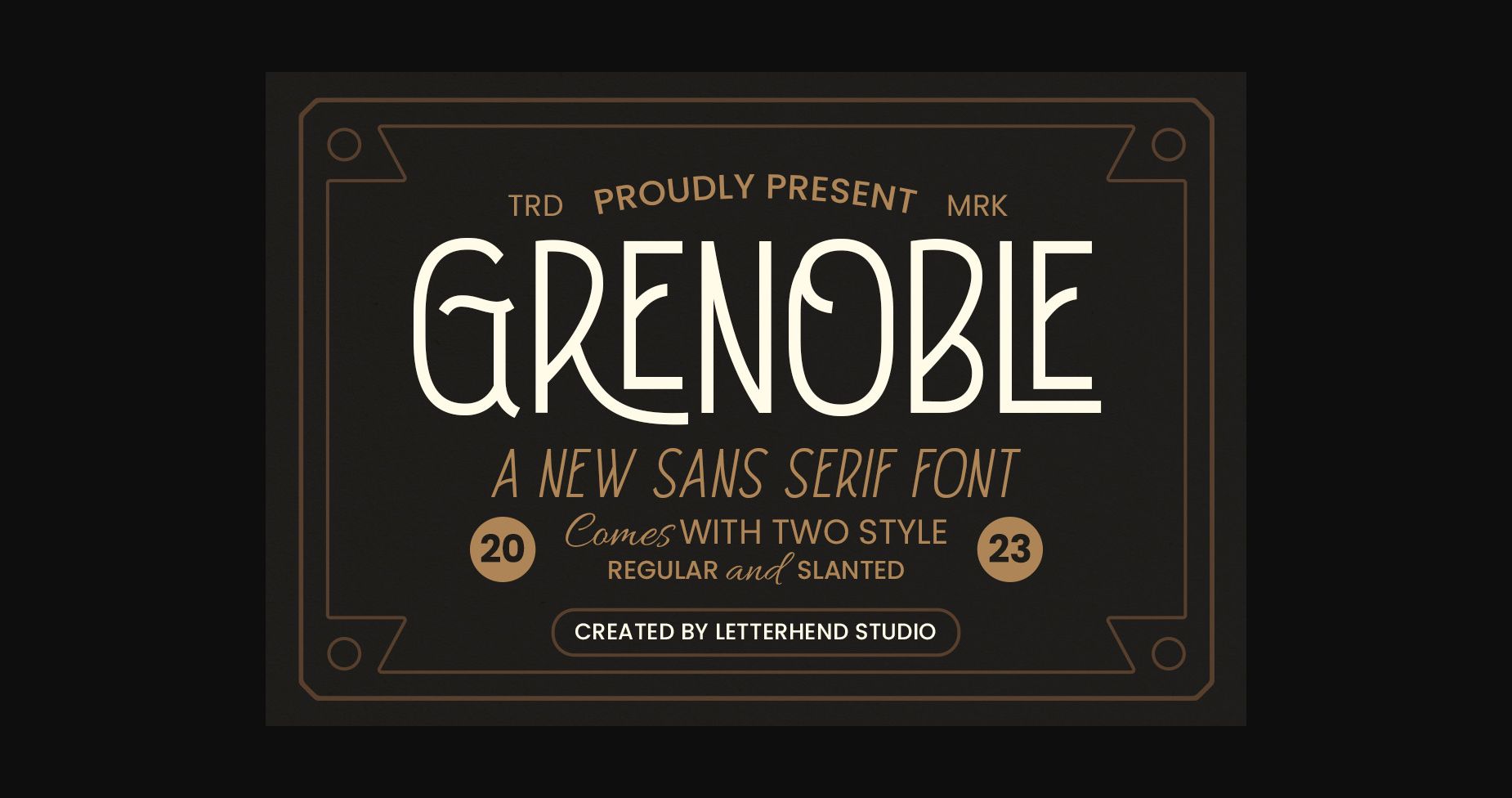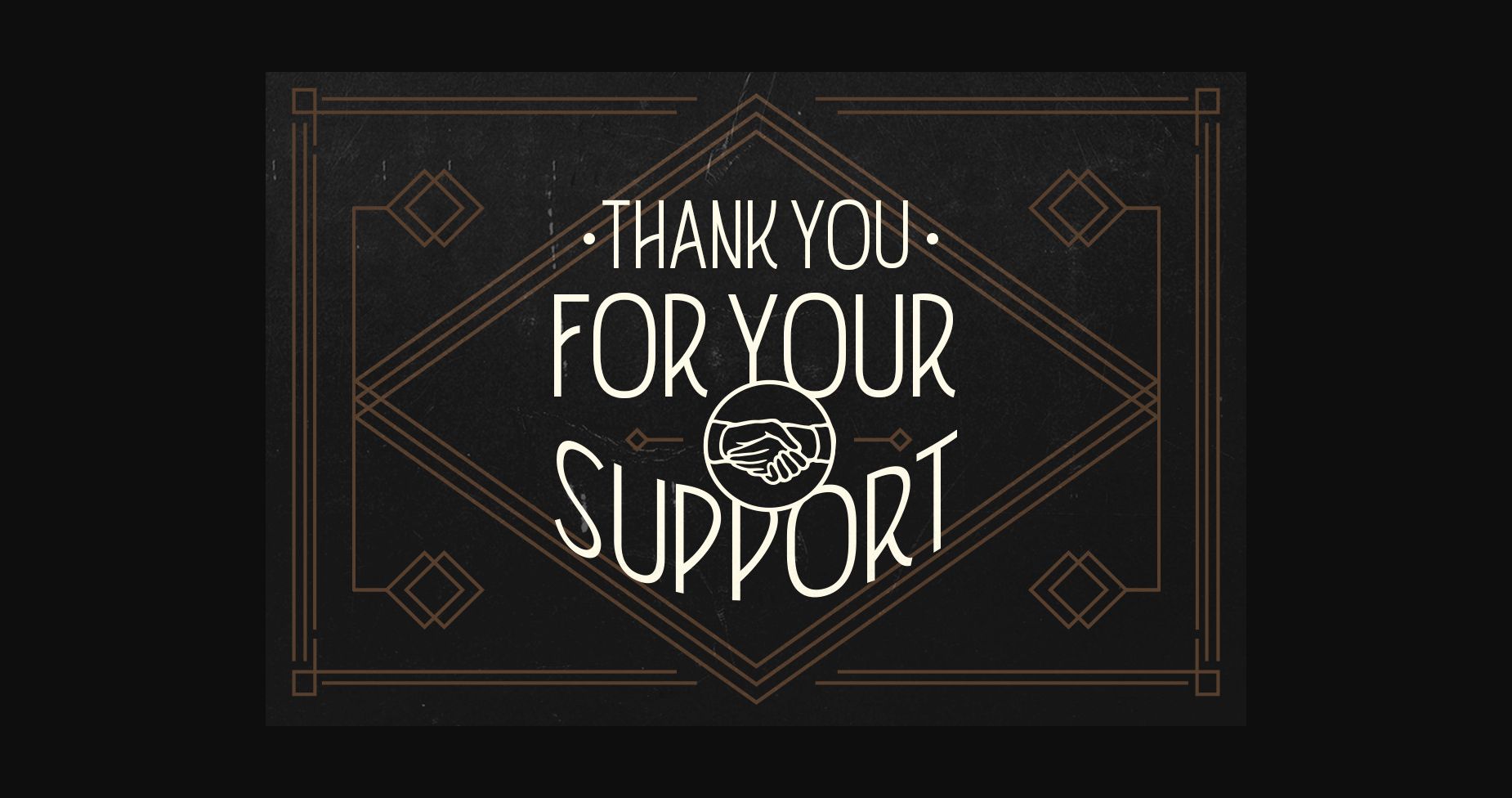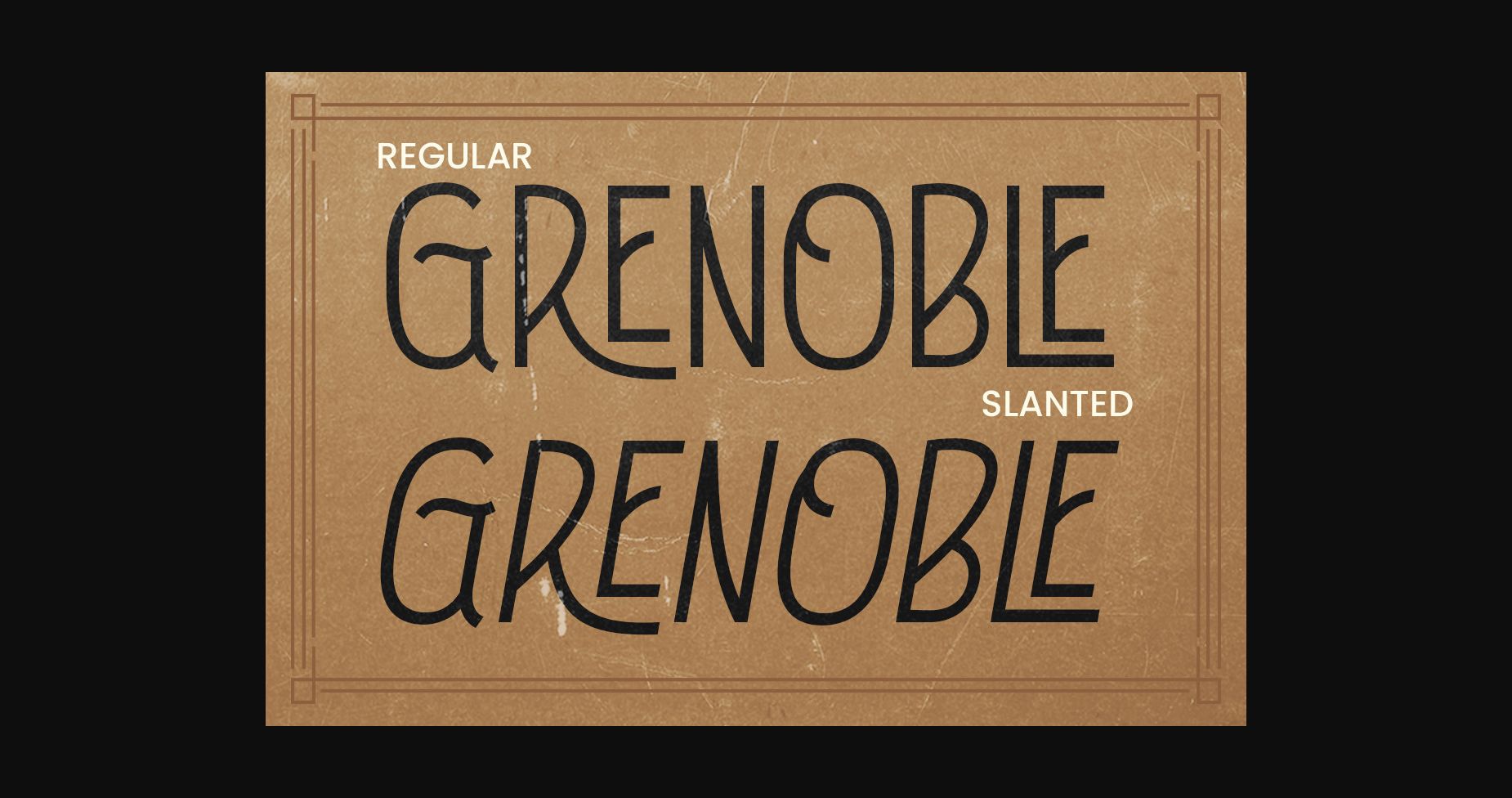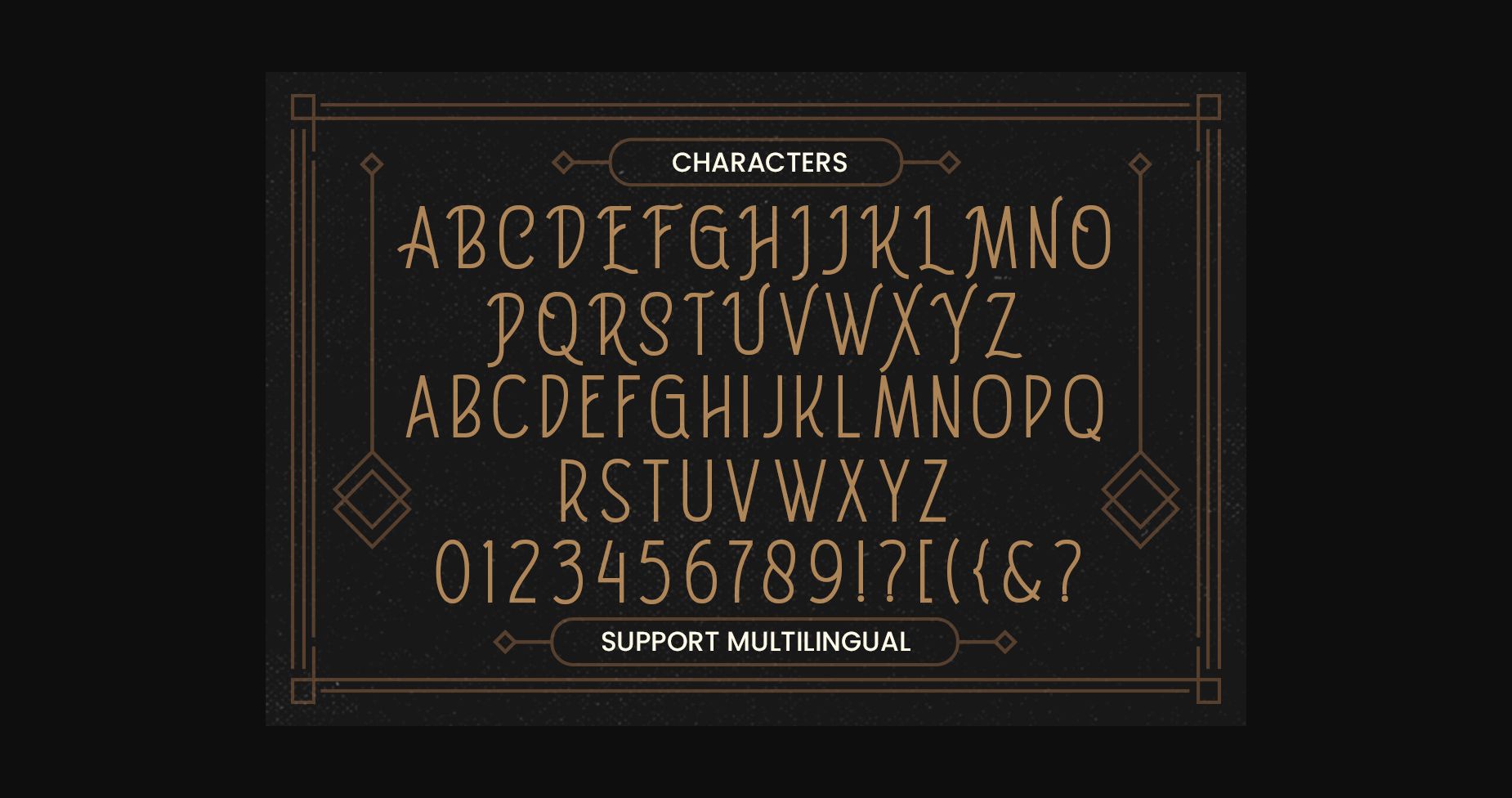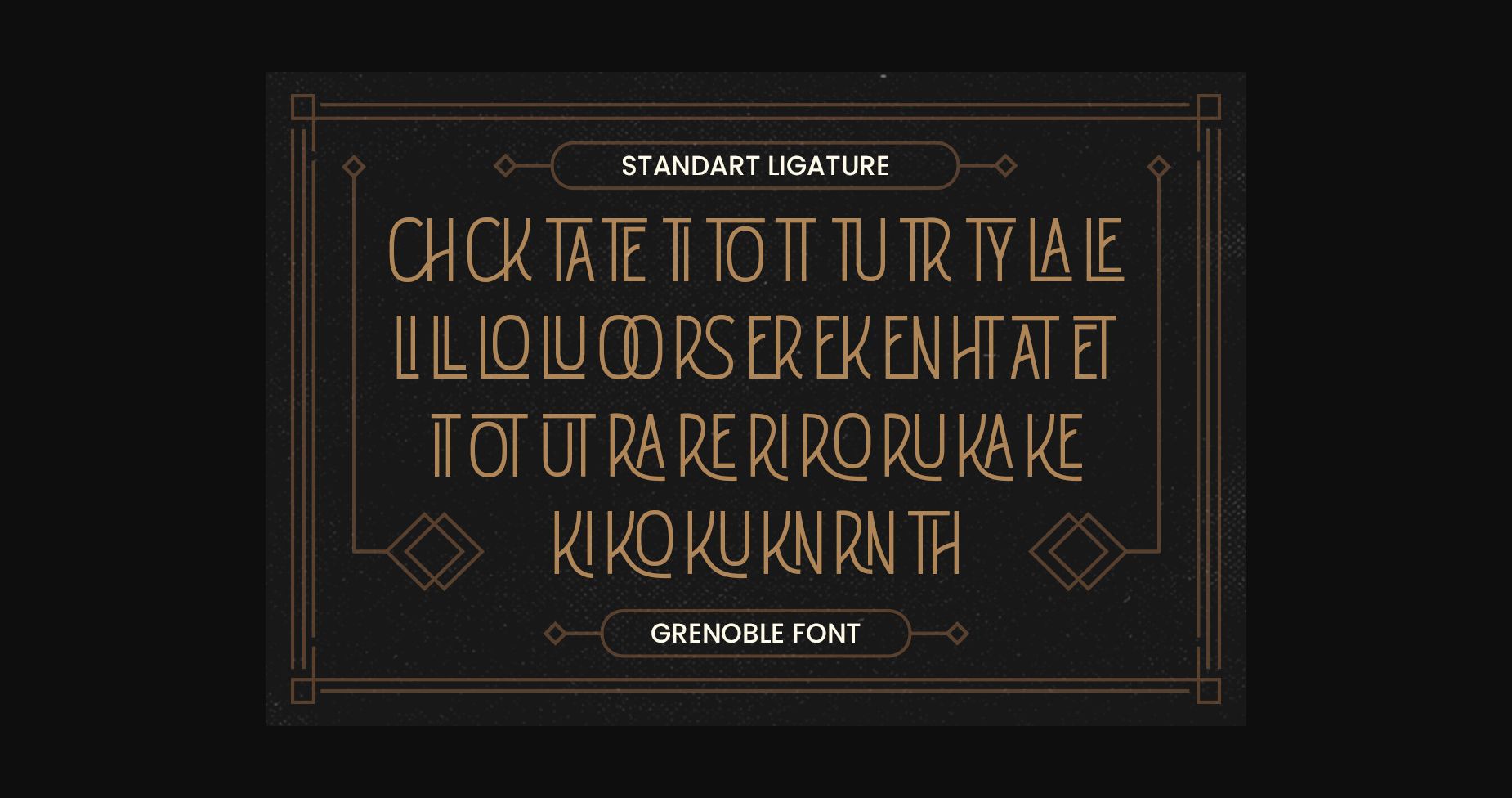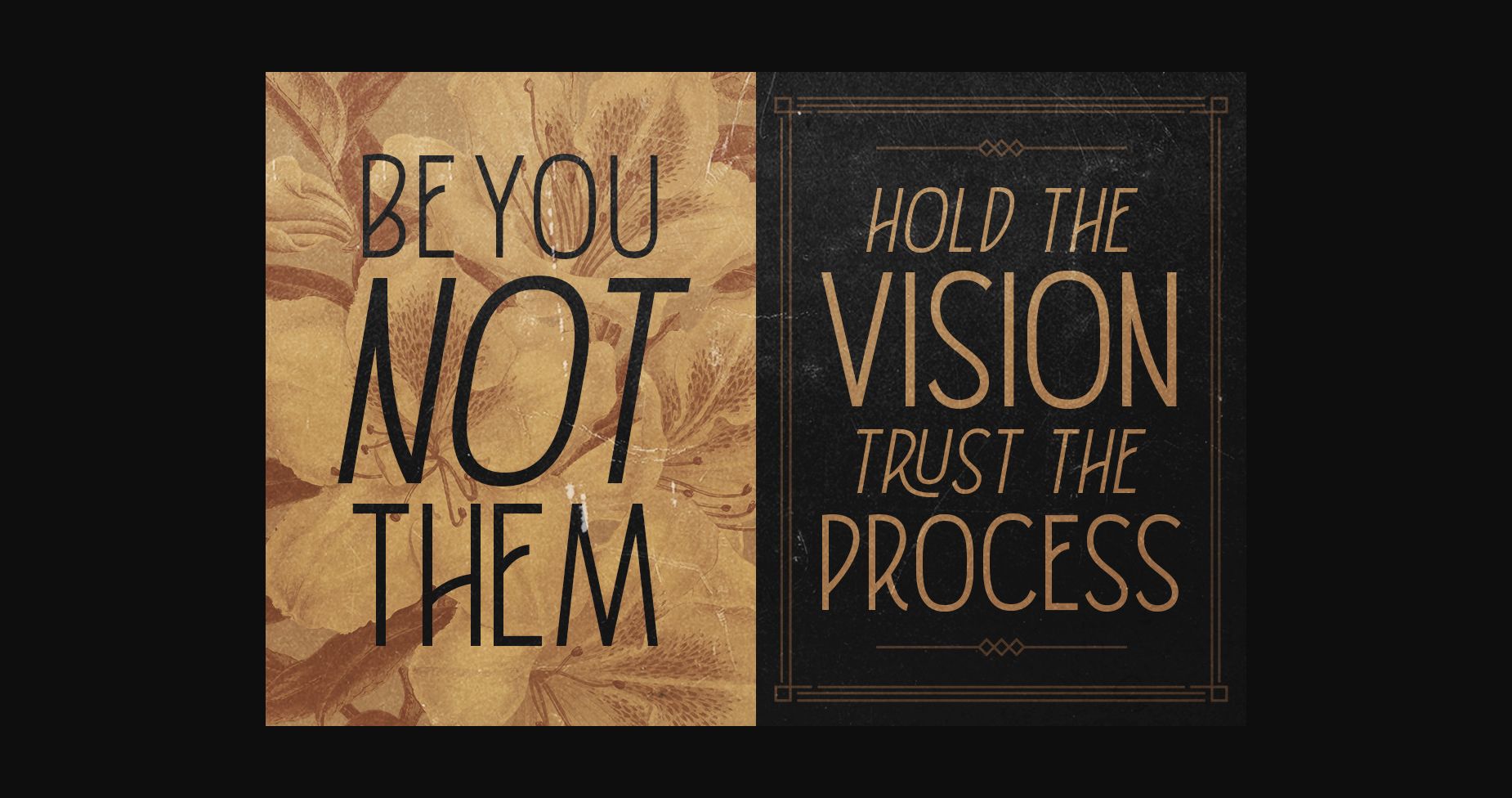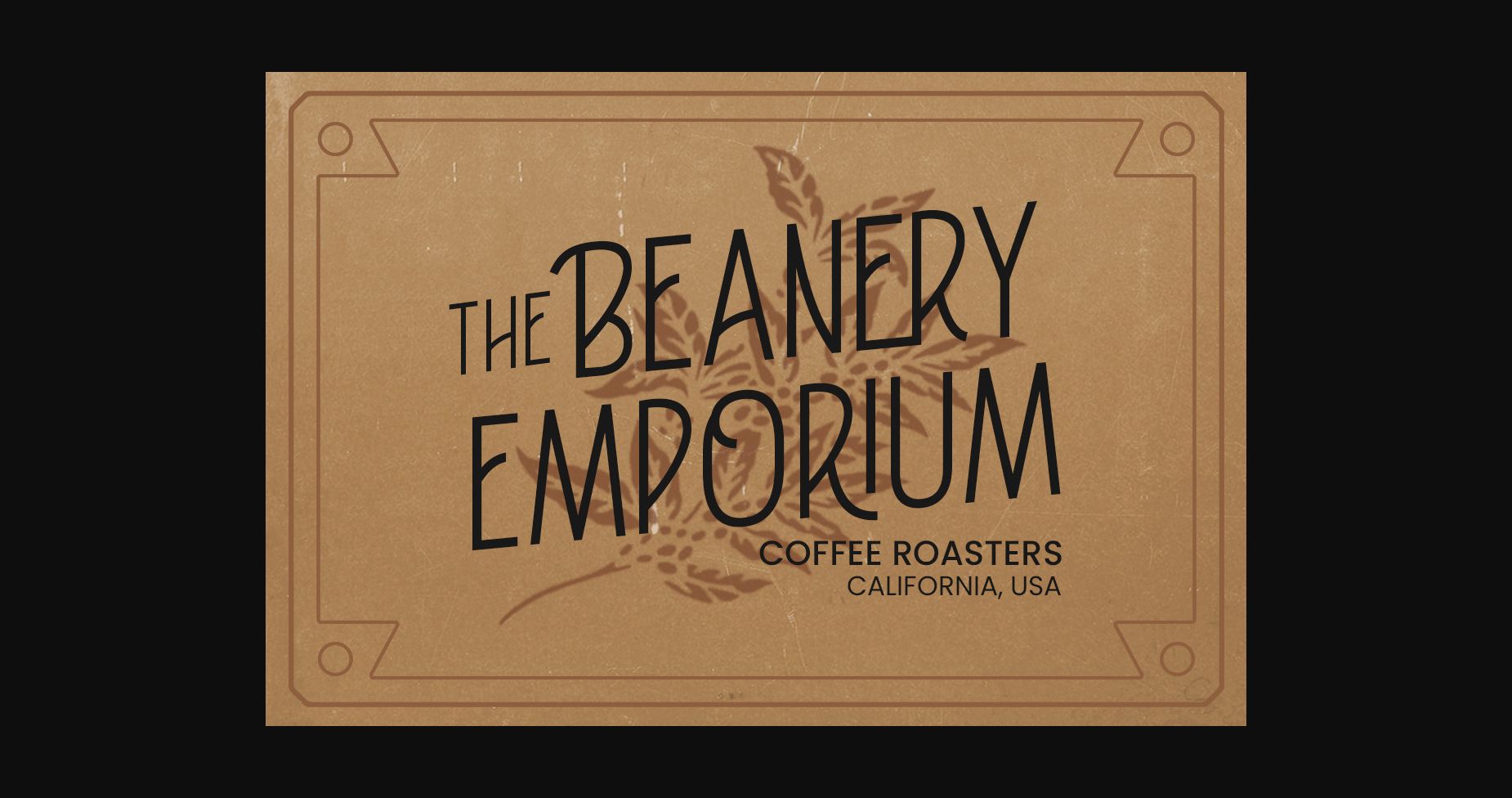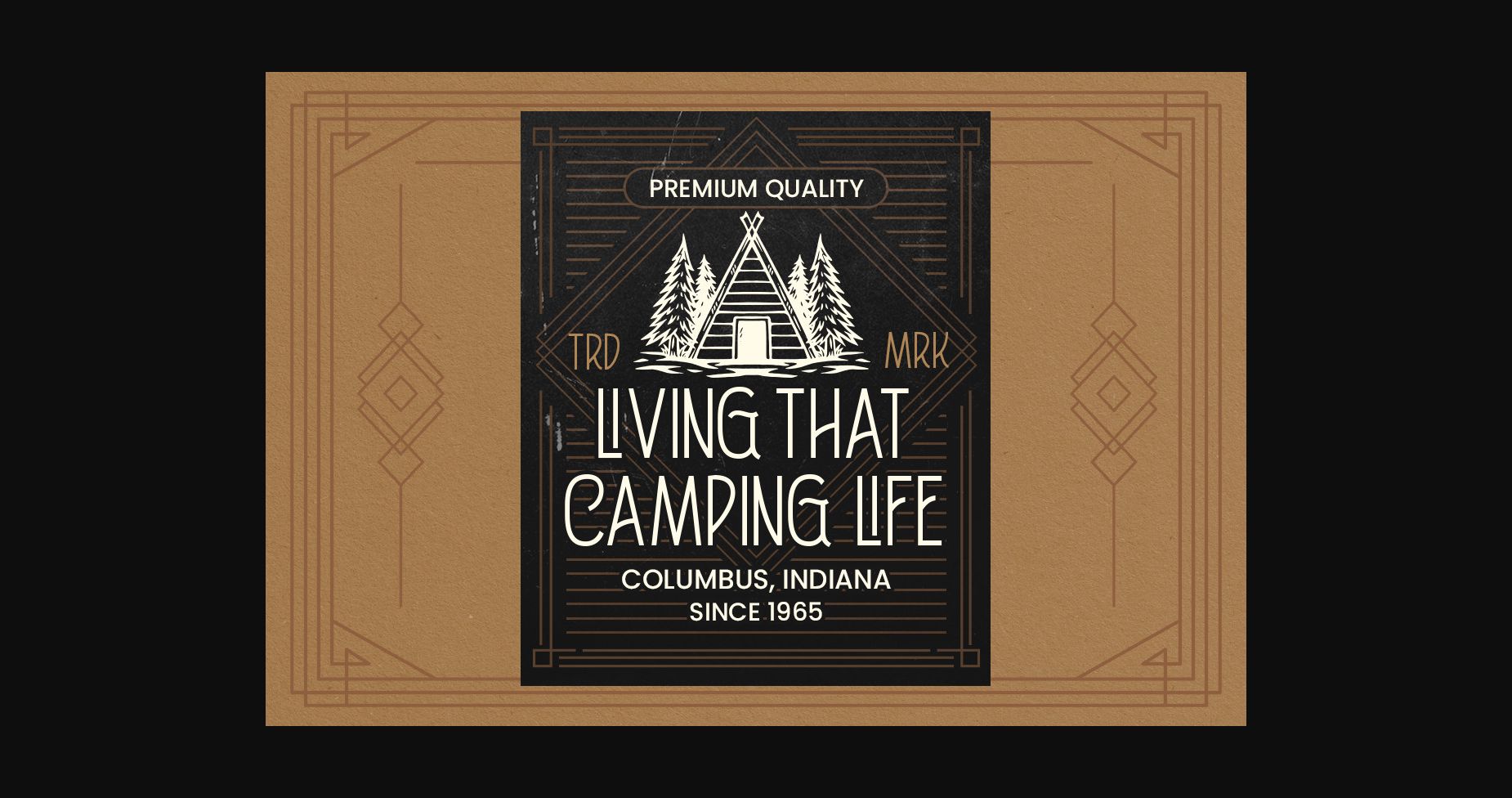
Grenoble Font
About Grenoble Font
Say hello to Grenoble, the sans-serif font that combines the best of modern design with the elegance of vintage feels. With its monoline strokes and clean lines, Grenoble is both simple and sophisticated. This font is perfectly made to be applied especially in logos, and other various formal forms.